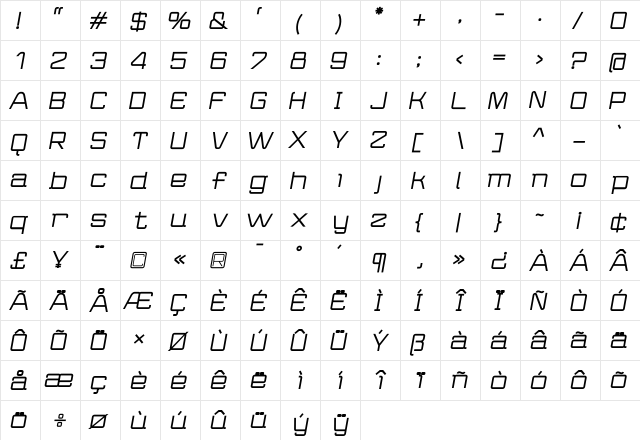
Wired Black Font Preview
Wired Black
Wired Black Font Details
Design Context for Wired Typeface
Wired is a composed and adaptable typeface that performs quietly and consistently across a wide range of design contexts.
Pro Tip: Pair Wired with a font of contrasting weight or personality to build a more expressive typographic hierarchy.